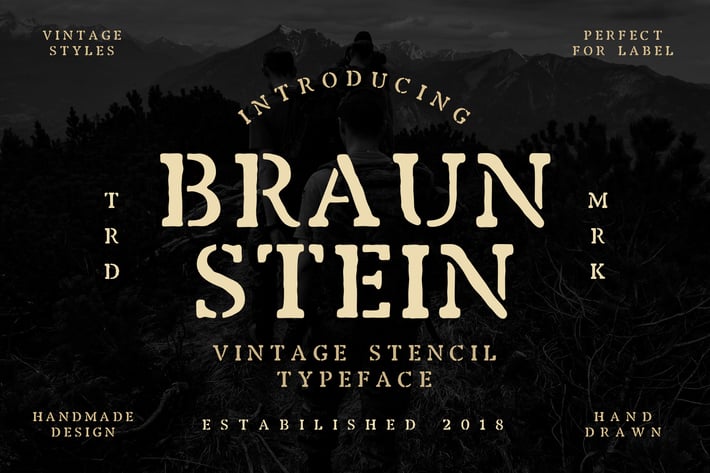
Braunstein Font
Braunstein is a handmade Stencil font with the classy style and strong line. It is suitable for any design needs. Thank you for grab this font in your collections! hope you enjoy with Braunstein.